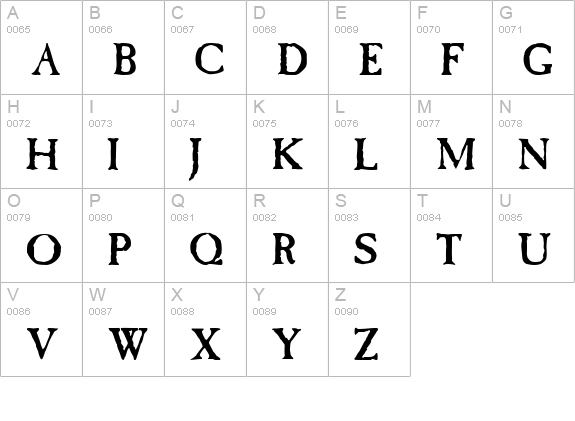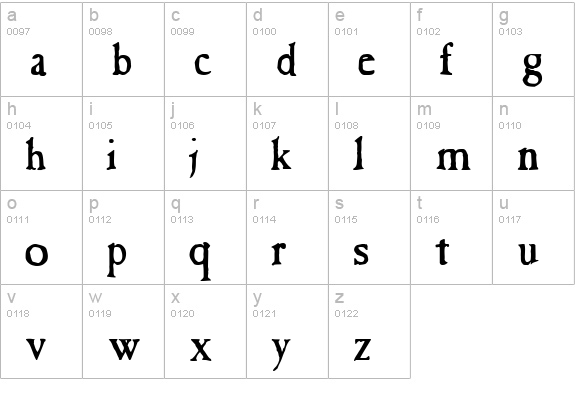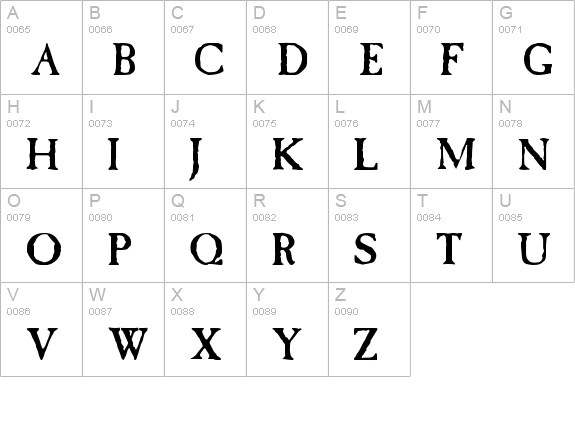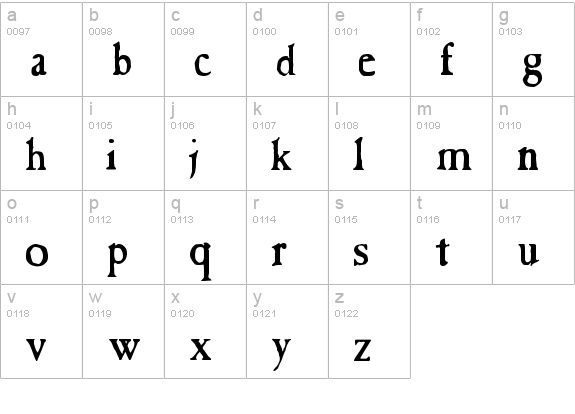
Ransom Plain font is a versatile and bold typeface that exudes a sense of power and authority. With its clean lines and strong presence, this font is perfect for any design project that requires a strong and impactful visual statement. This font features a unique combination of sharp angles and rounded curves, creating a harmonious balance that captures attention and leaves a lasting impression. The characters are meticulously crafted, ensuring clear legibility even at smaller sizes. Ransom Plain font is not only visually stunning, but it also offers a great deal of versatility. Whether you need it for a logo, website, poster, or any other creative endeavor, this font will effortlessly elevate your design to new heights. One of the most remarkable aspects of Ransom Plain font is that it is freely available to download at FontsMarket.com. This means that you can enjoy the beauty and power of this font without any cost. Whether you are a professional designer or an aspiring creative, having access to high-quality fonts like Ransom Plain font at no charge can significantly enhance your design process and save you valuable resources. So why wait? Download Ransom Plain font today from FontsMarket.com and unlock a world of possibilities for your next design project. With its striking appearance and generous availability, this font is sure to become an invaluable asset in your creative toolkit.